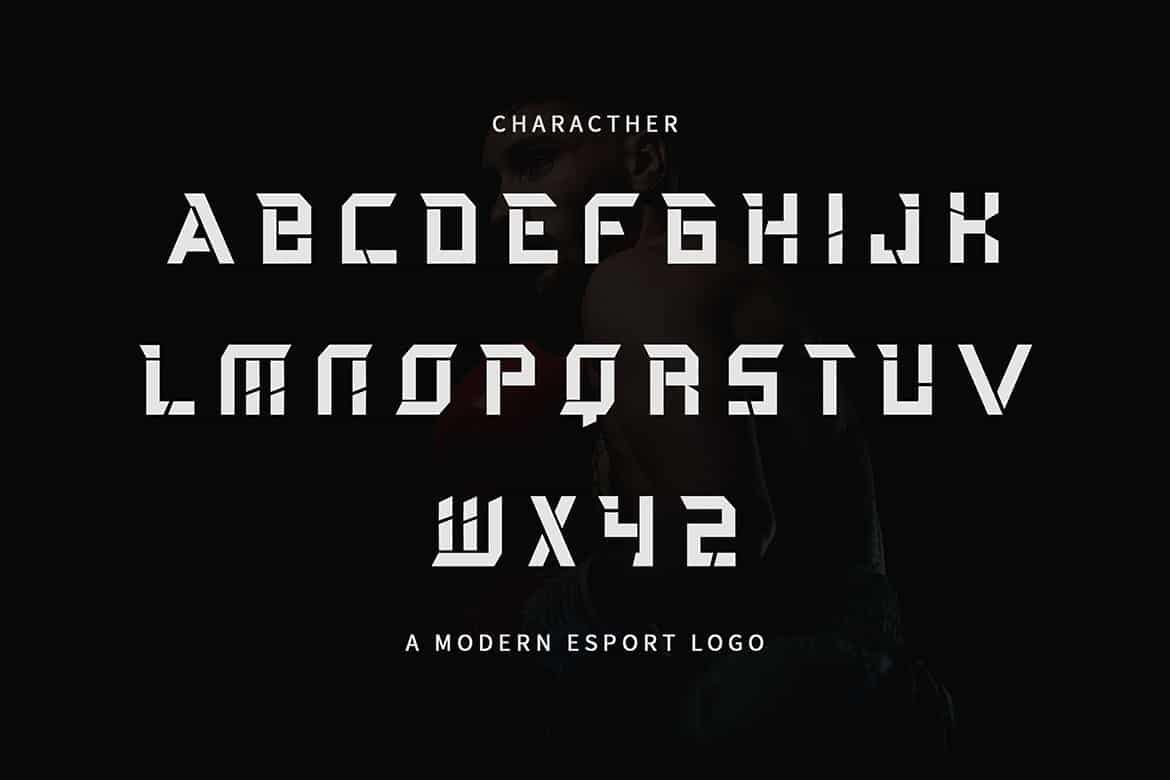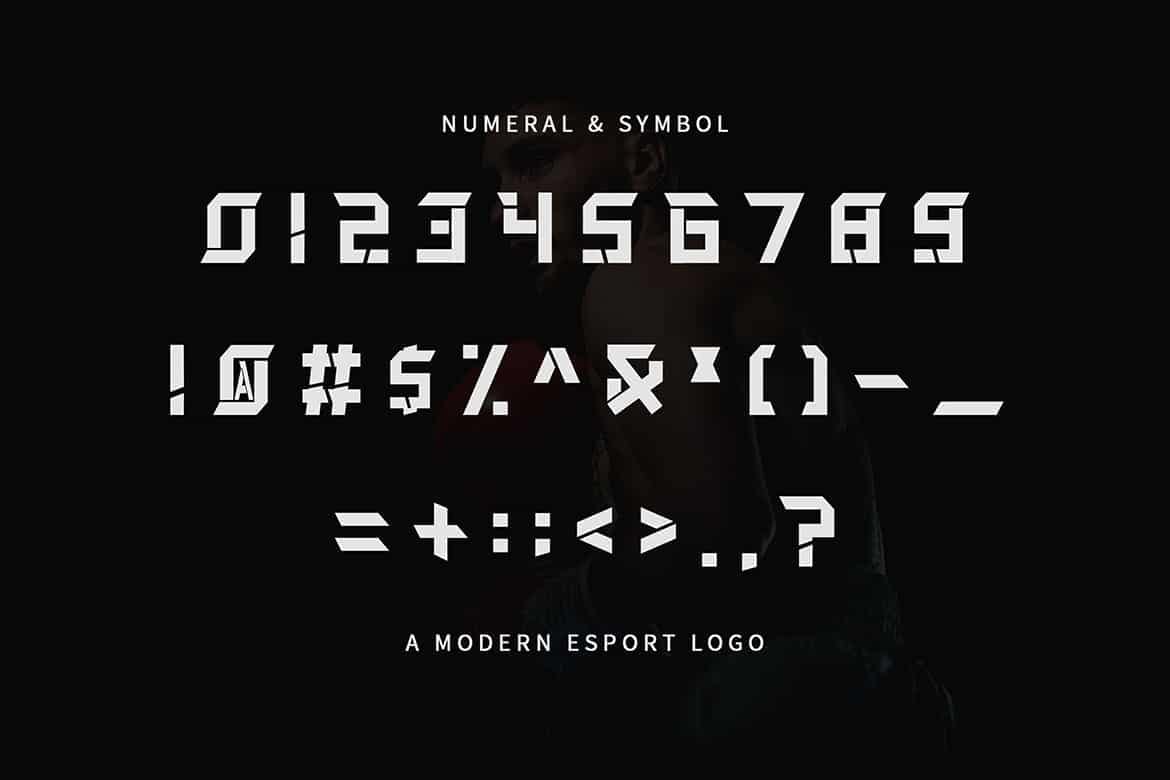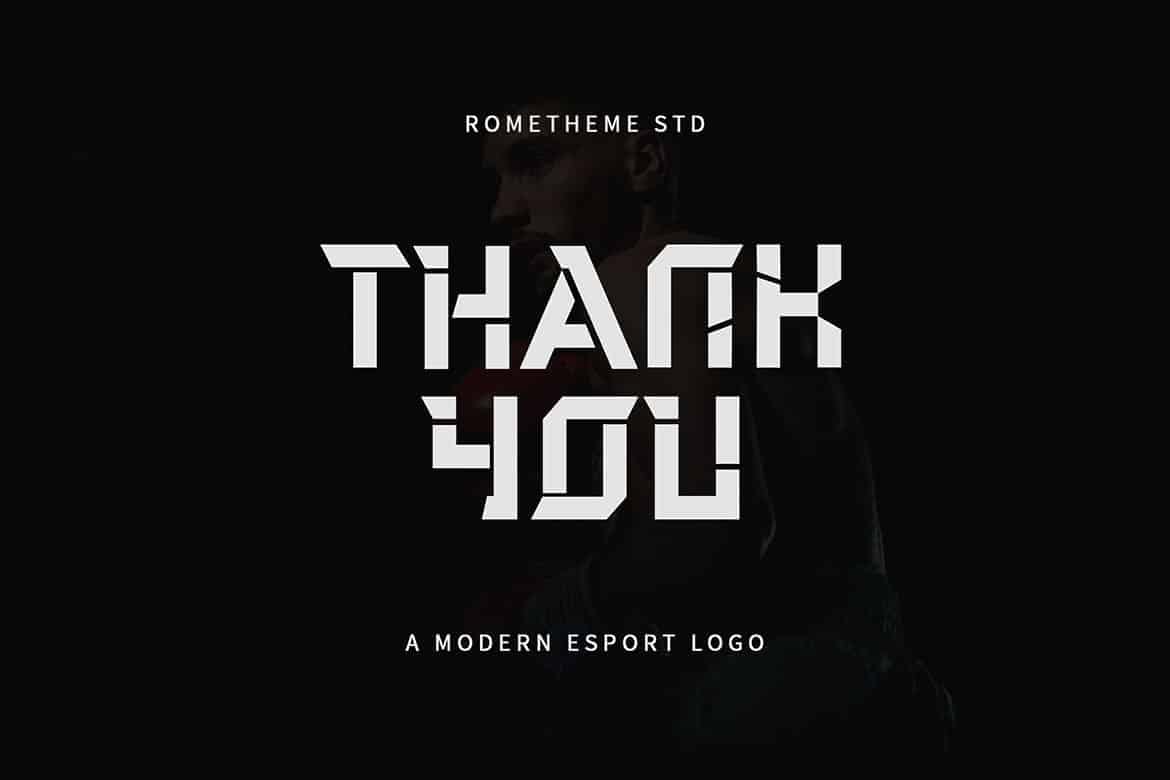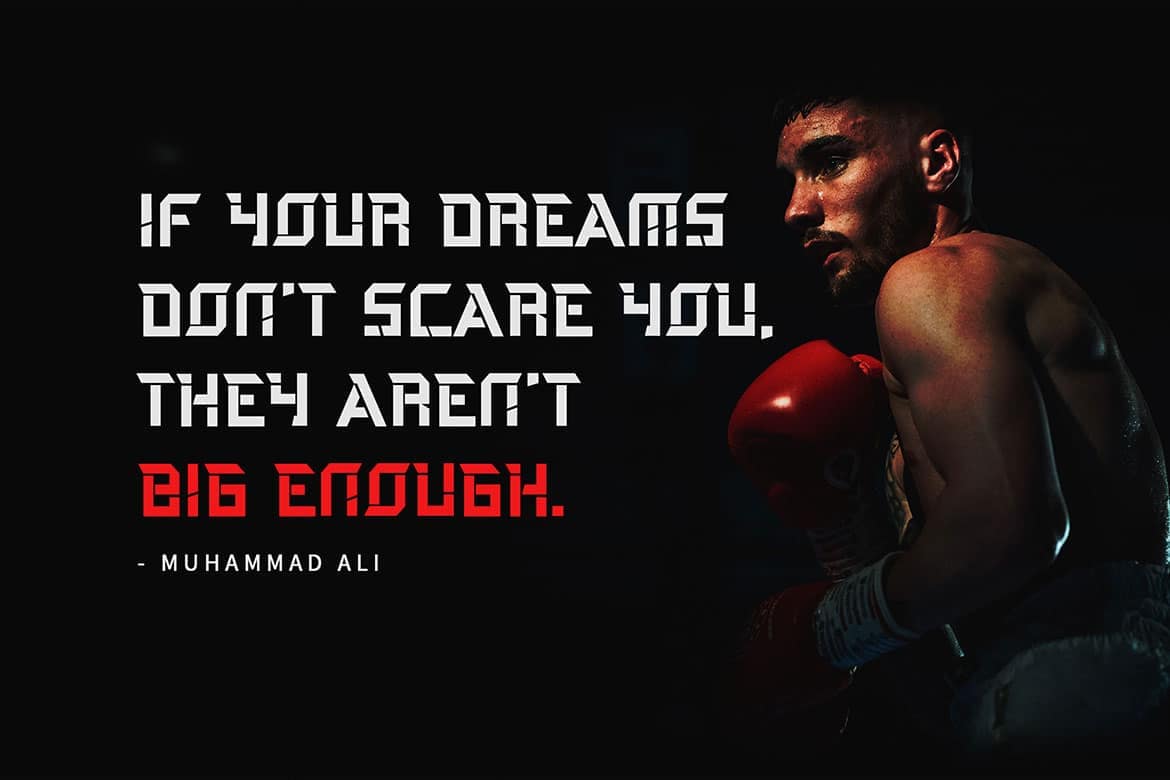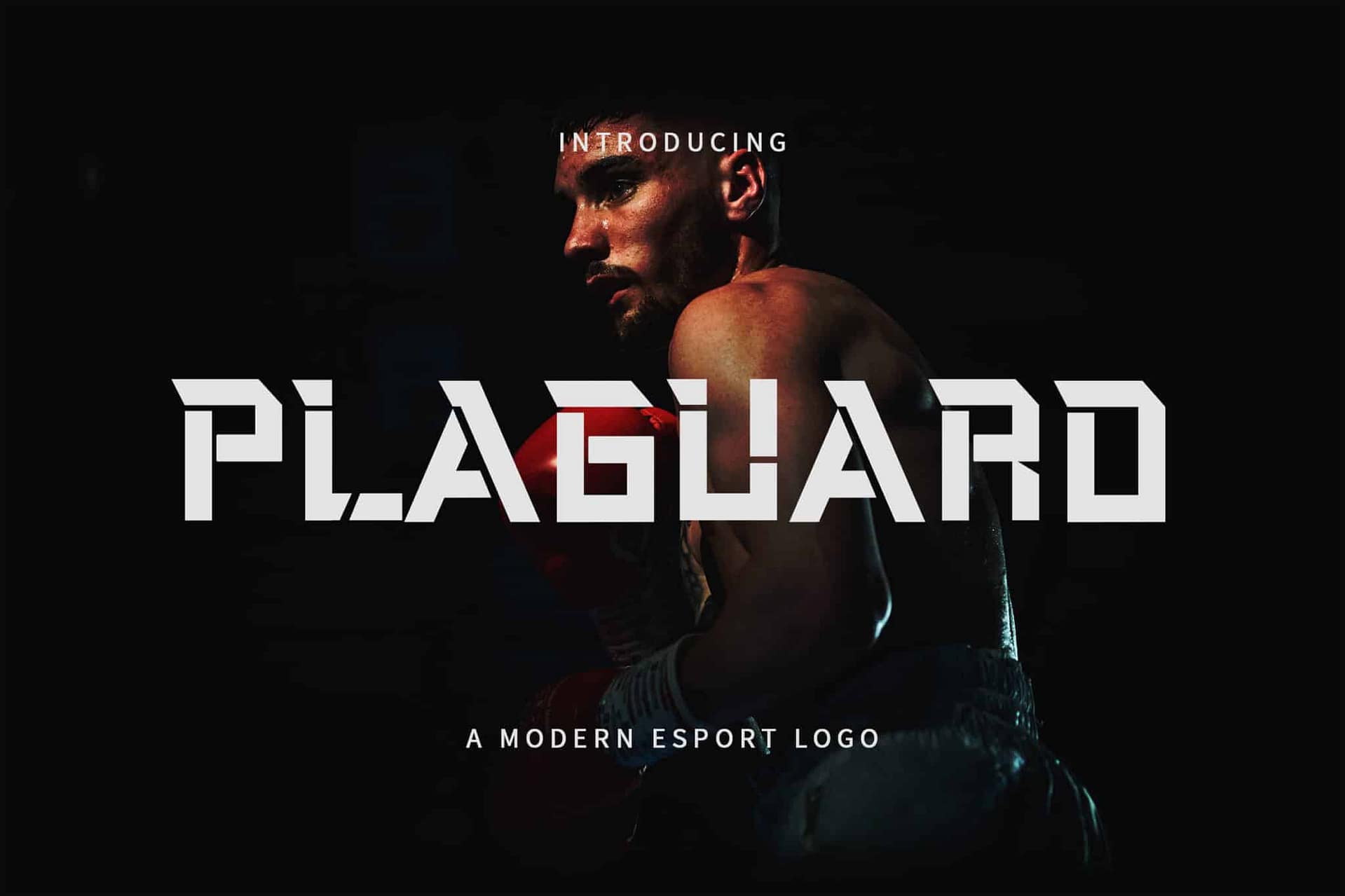
Plaguard is a Modern display font, this font looks elegant, strong, rough, and easy to use. This font looks modern, cute, fancy, readable, stylish, catchy and easy to use. It’s a great font for fashion, apparel projects, signature, album cover, logo, branding, magazine, social media, & advertisements, but also works great for other projects.
• Basic Latin A-Z and a-z
• Numbers
• Punctions
• Multilingual Support
Plaguard – Esport Font